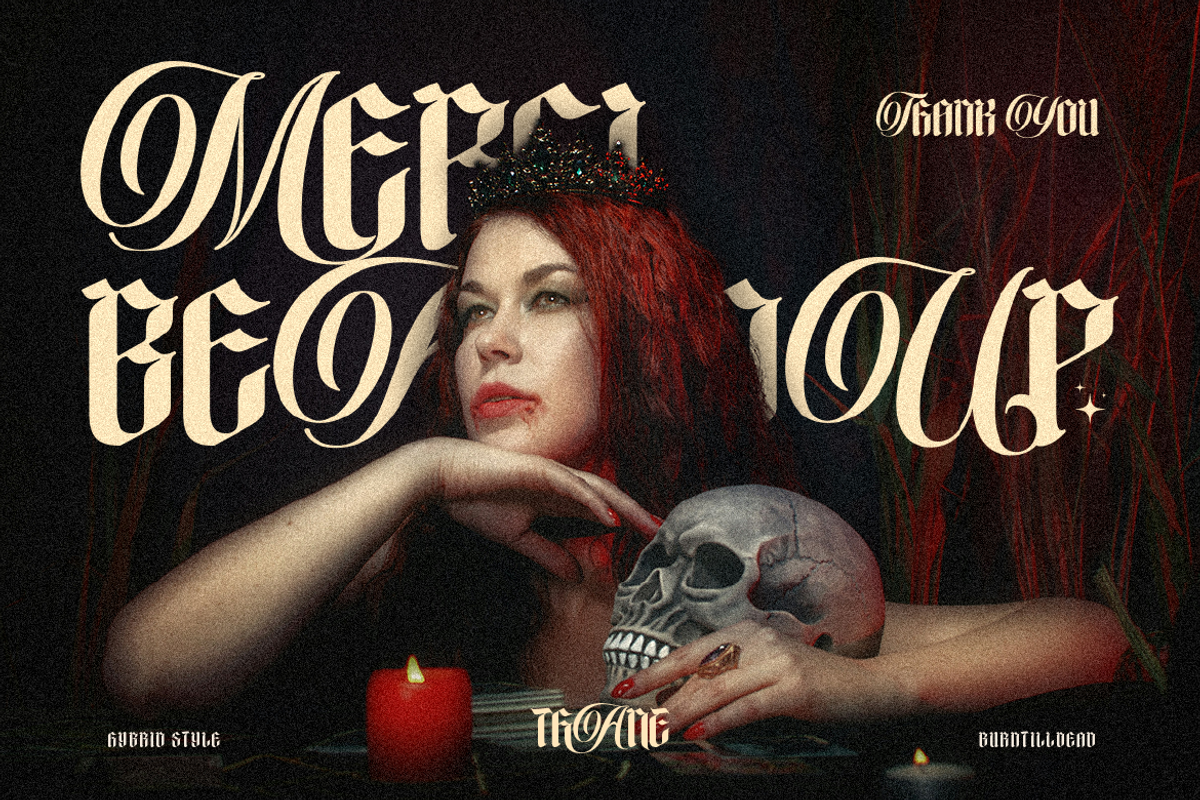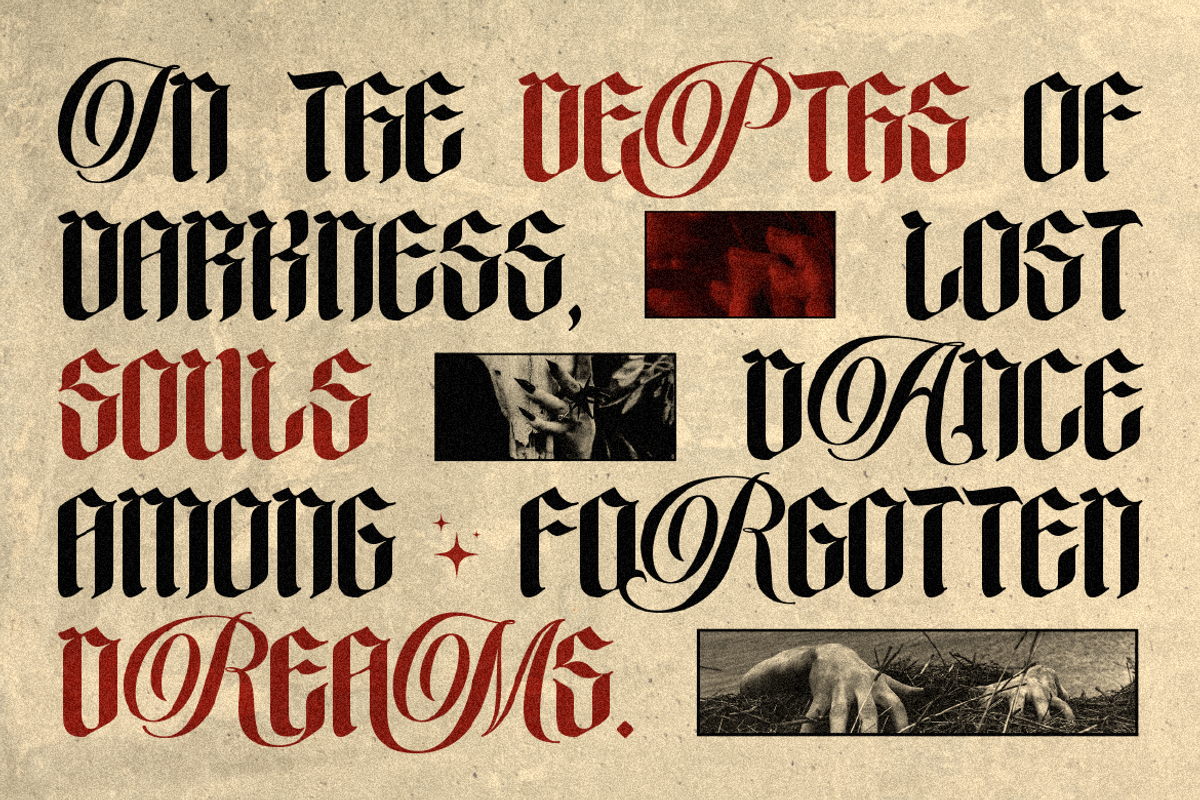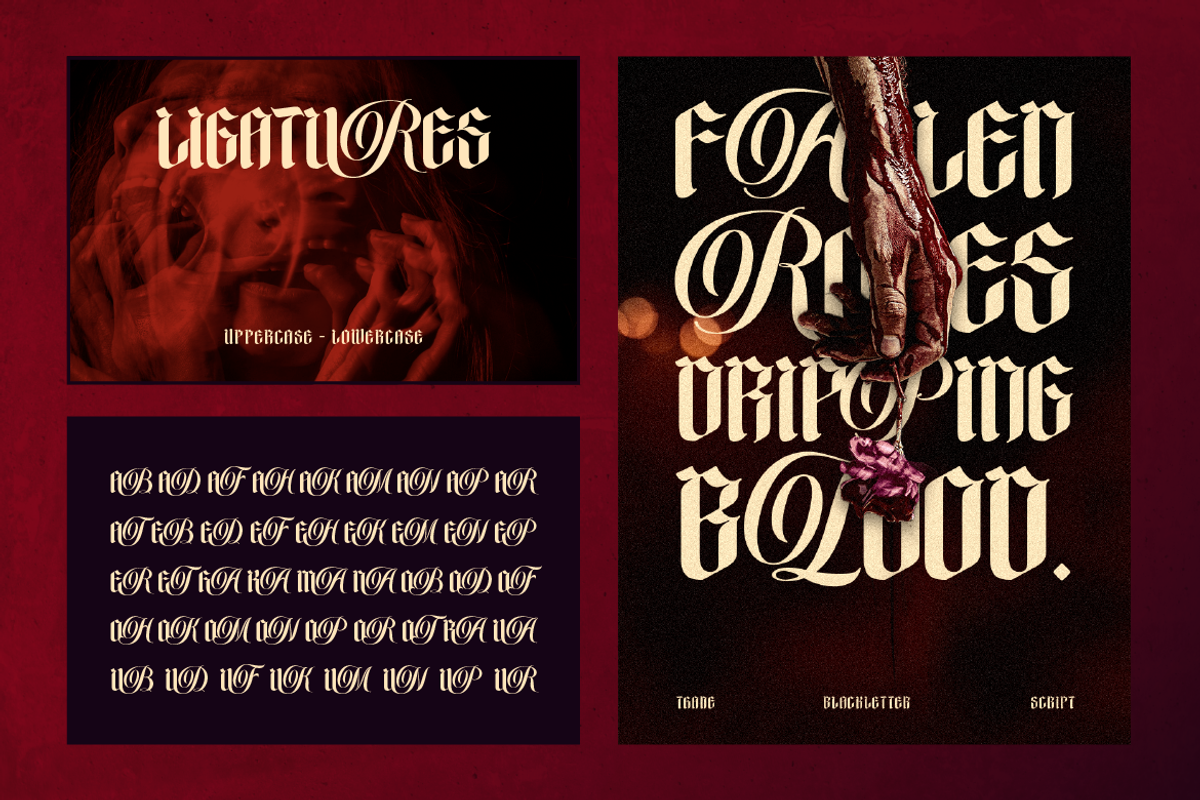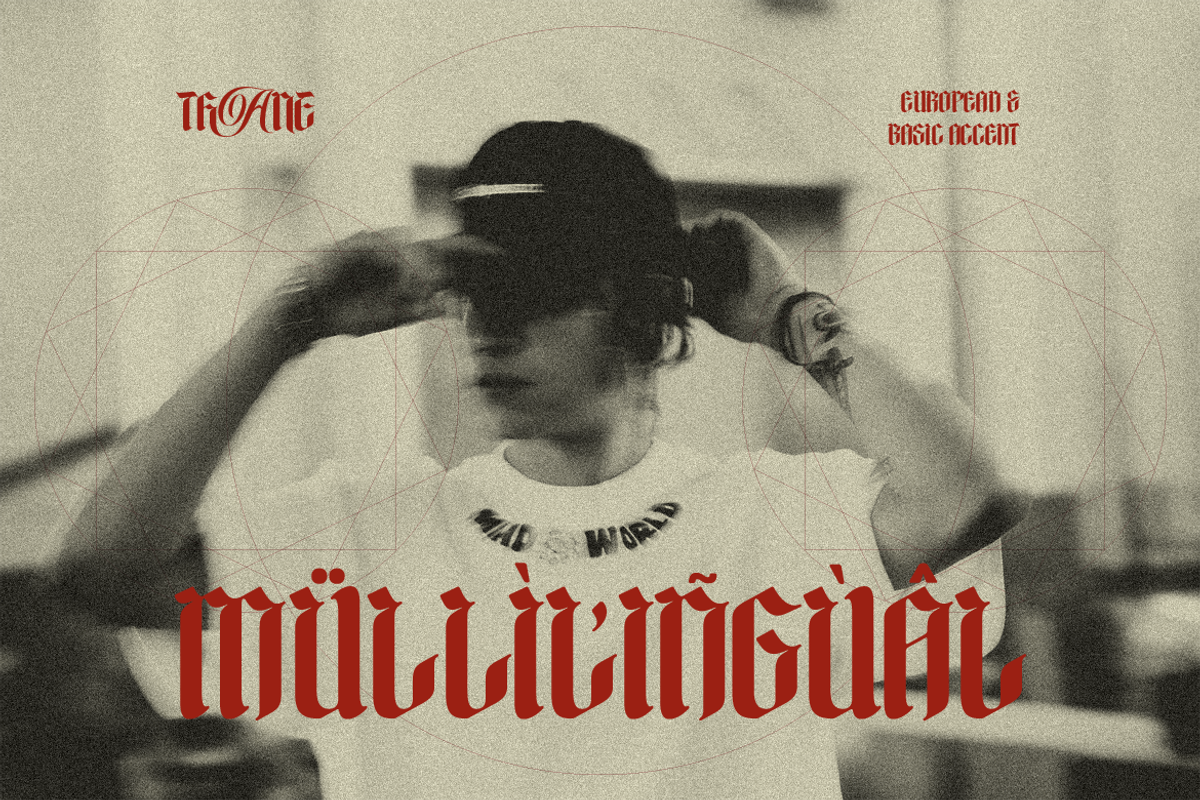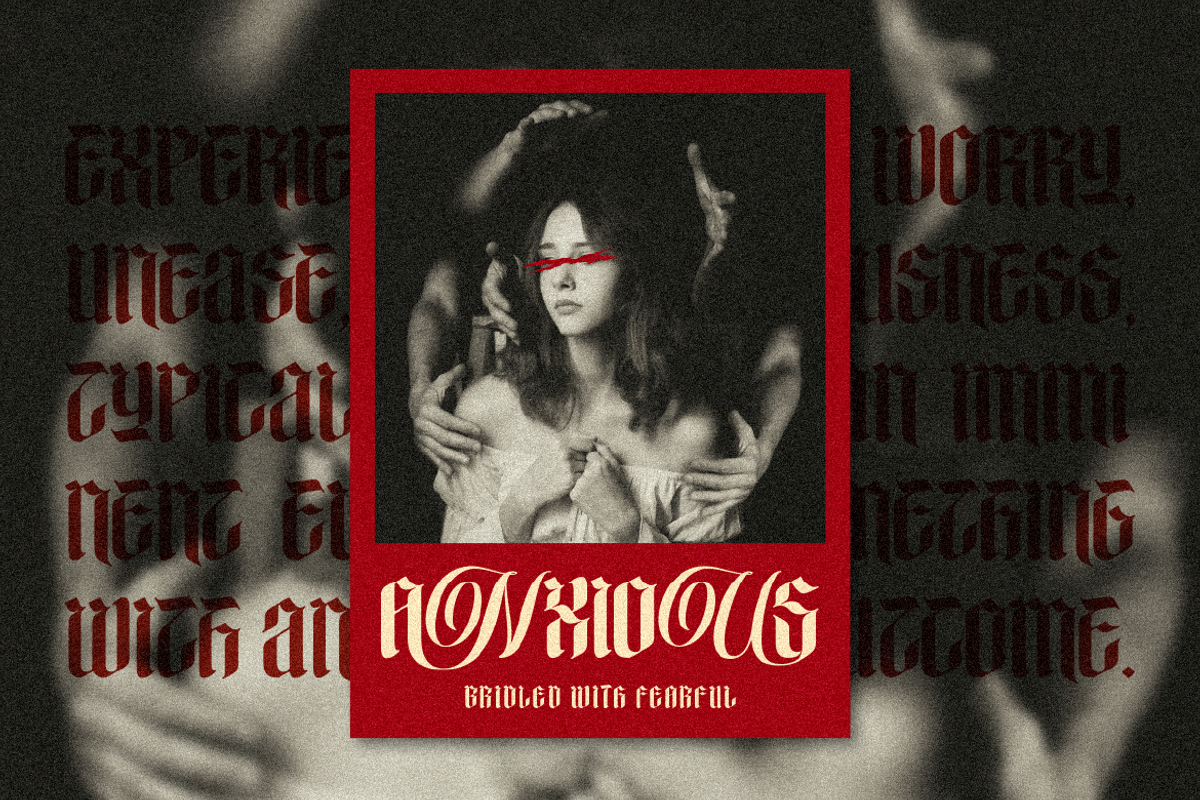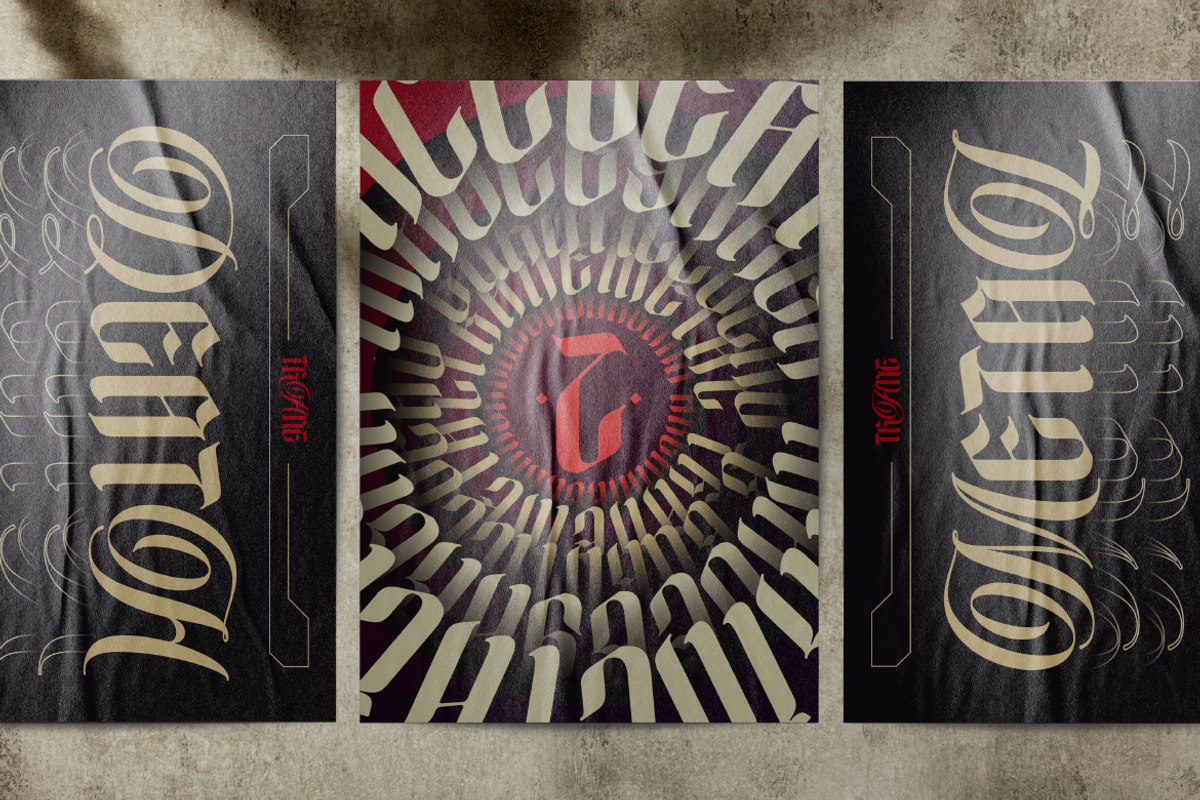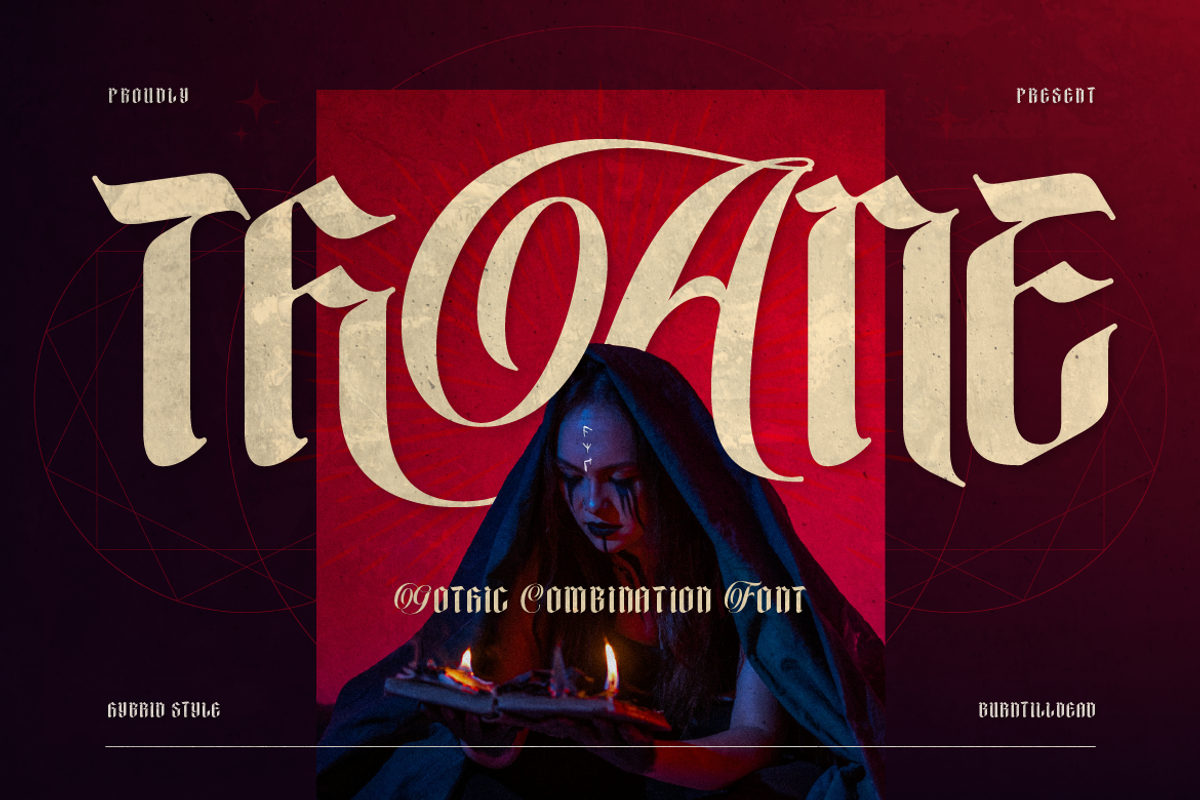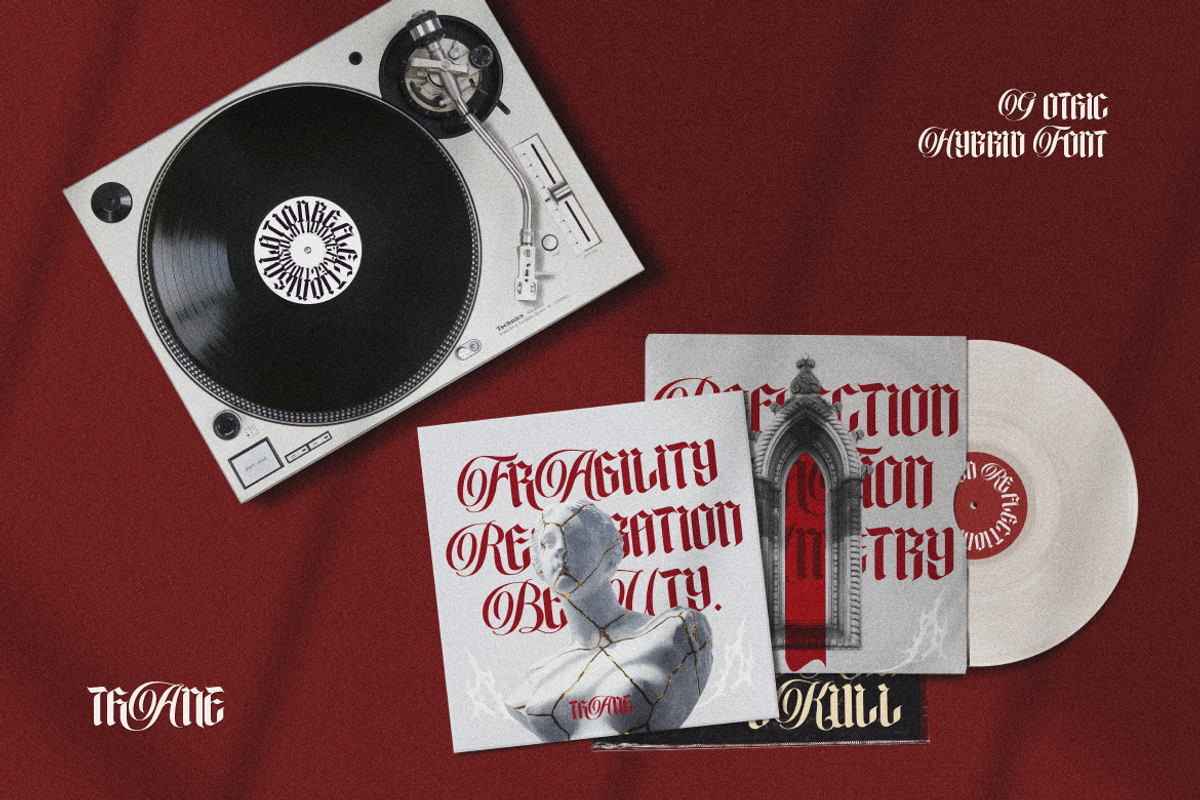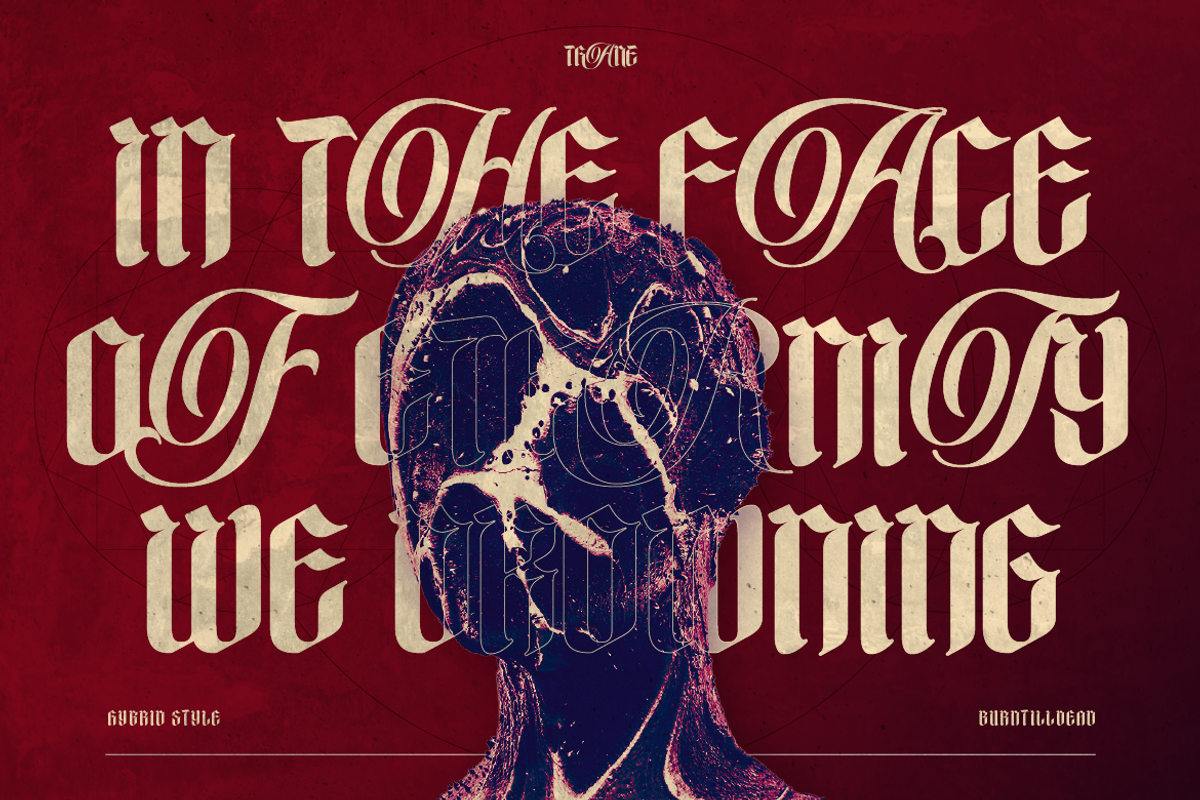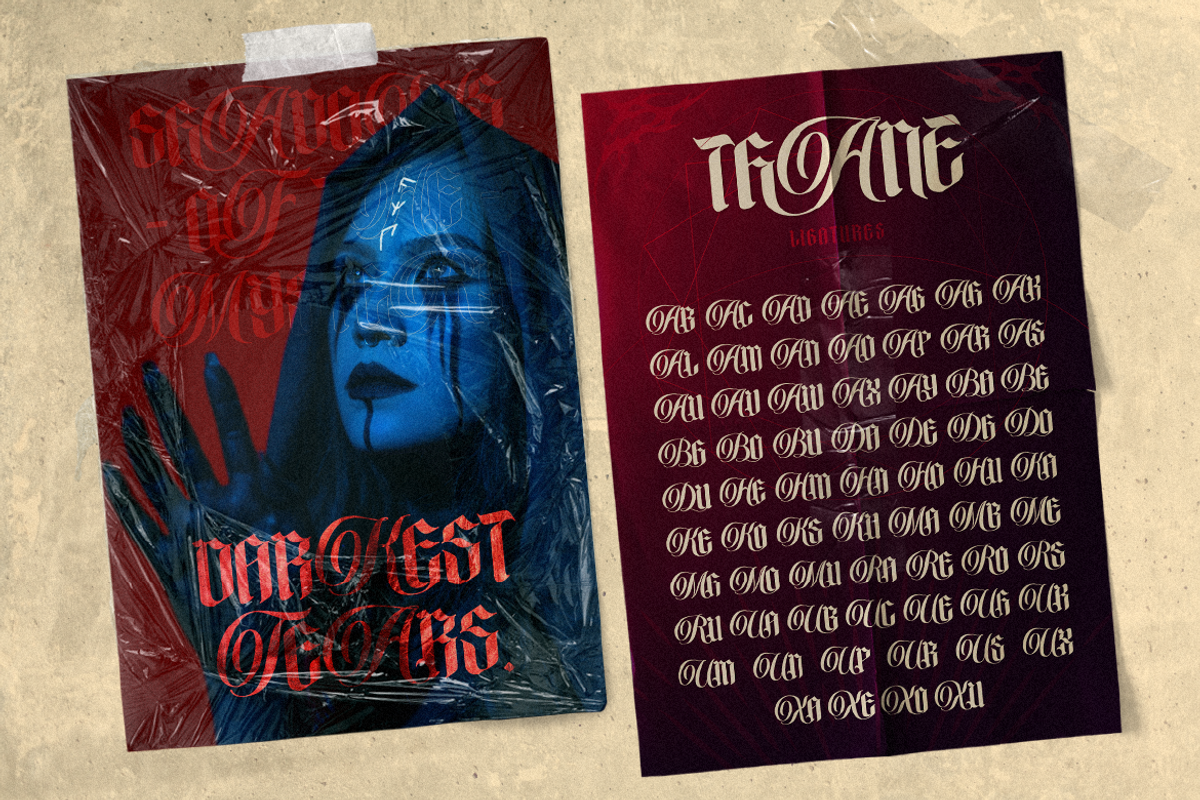
Thane - Gothic Hybrid Style
Proudly present, Thane, our gothic hybrid font. A stunning fusion of blackletter and script. This unique typeface combines the bold, intricate lines of blackletter with the flowing grace of cursive, creating a visual harmony that captures attention. Perfect for branding, invitations, streetwear, t-shirt design or apparel, merchandise, poster, magazine and any project that demands a touch of drama, melancholy, sophistication but still have power.